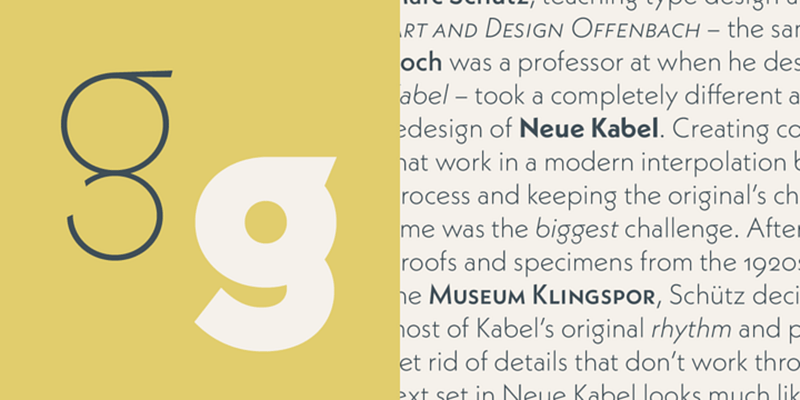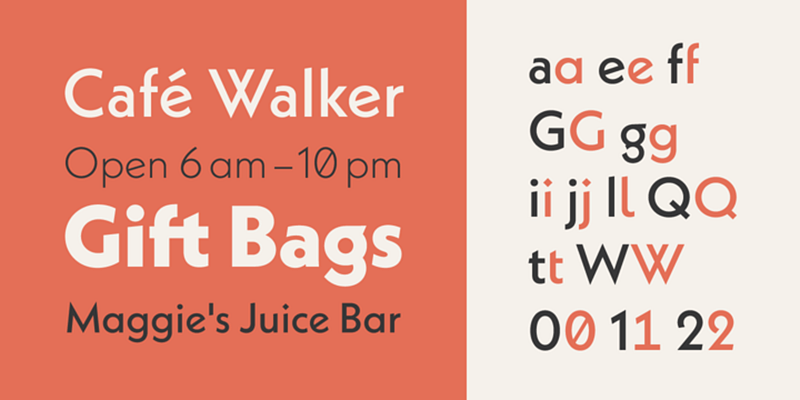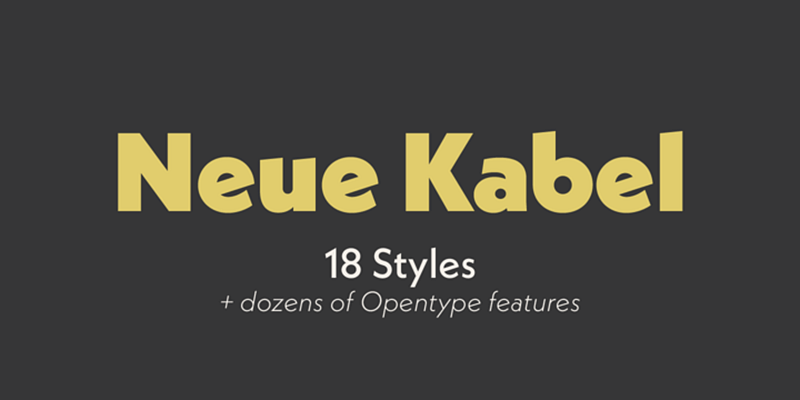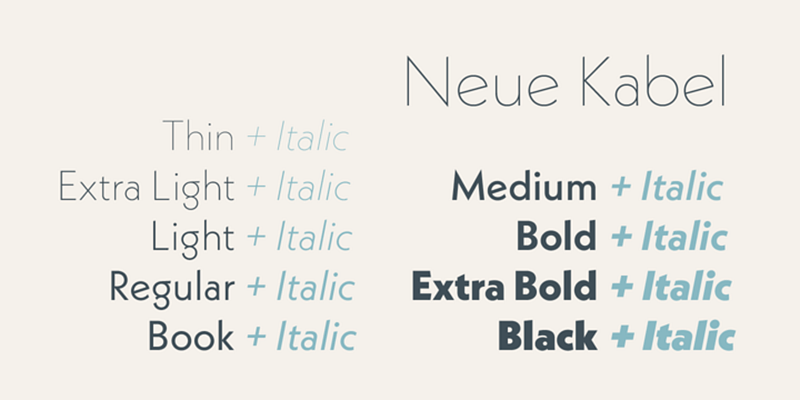
The Neue Kabel® typeface family, from Marc Schütz, takes the original charm of Rudolf Koch’s 1927 design and ushers it into the 21st century. It maintains the rhythm and proportions of Koch’s typeface, and adds the consistent design traits and family structure of a 21st century sans serif.